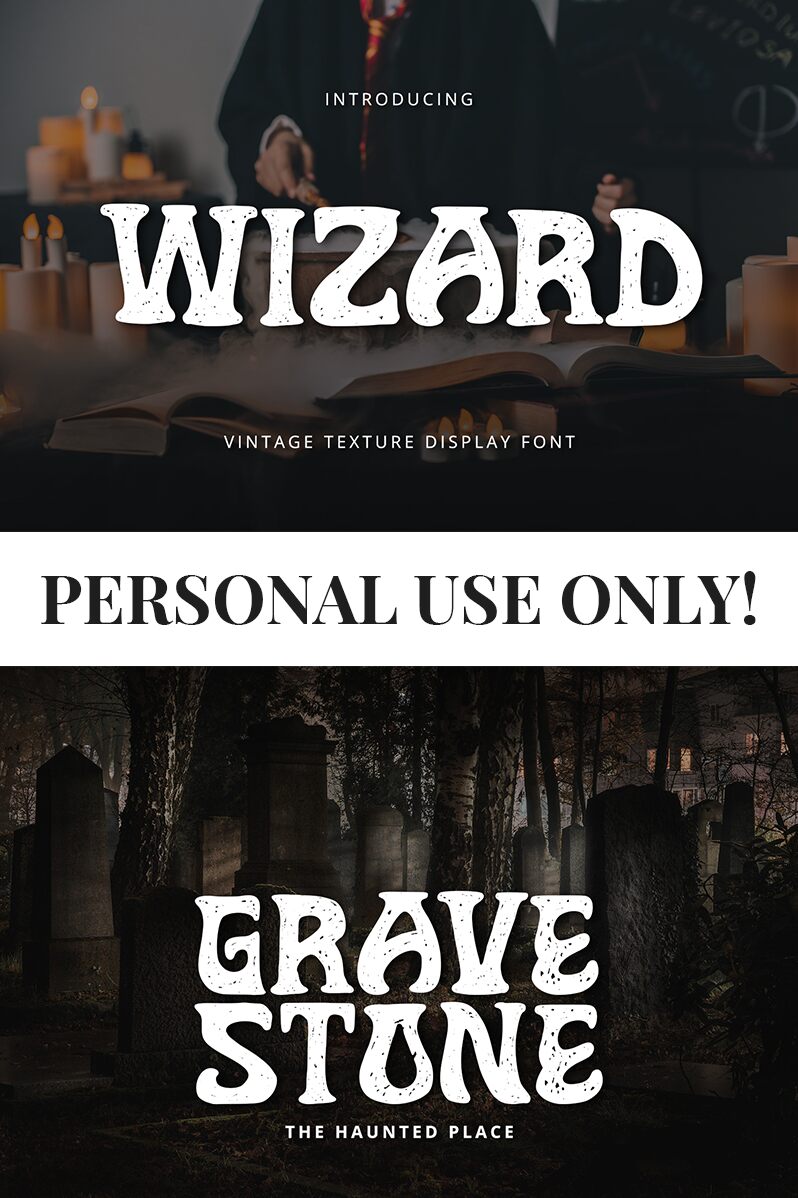
Wizard
Wizard font by Alpaprana Studio is a mystical, textured style typeface with Halloween vibes. The touch of vintage inspiration alongside eroded surfaces creates a display full of fantasy and quirkiness. Each character comes readable where irregular bold lines and rugged details dominate the overall look. Insert words in Wizard into your projects and witness the magic unfold.
The free eroded font was carefully created to address posters, signage, gaming titles, book covers, packaging boxes, T-shirt designs, social media content graphics etc.